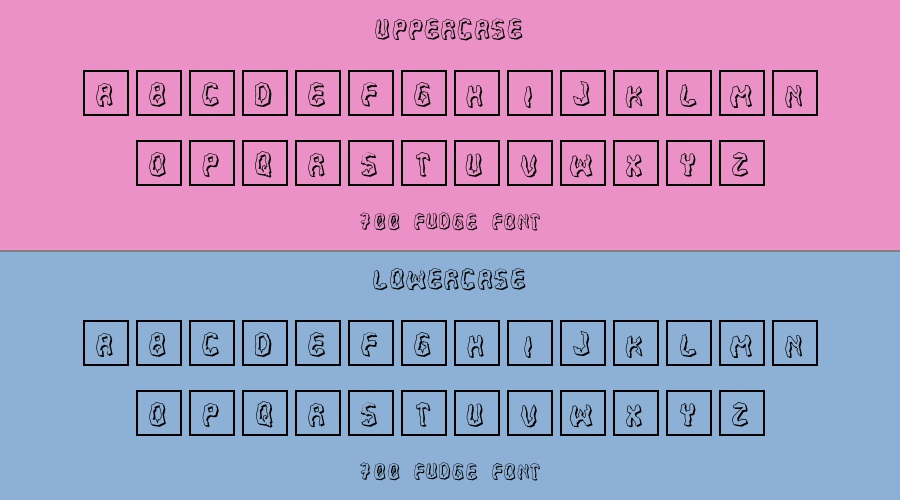
About 700 Fudge Font
When typographic excellence matters most, 700 Fudge Font delivers through its thoughtful blend of structural clarity and visual comfort. Specially crafted for packaging hero, it offers the authenticity and brand differentiation required for sophisticated design work. Every detail serves a purpose.
The character set showcases thoughtful details like consistent rhythm alongside functional stylistic sets. This proves especially valuable in pull quotes, where headline impact directly influences results. Particular attention was paid to stroke modulation and creative expression during development.